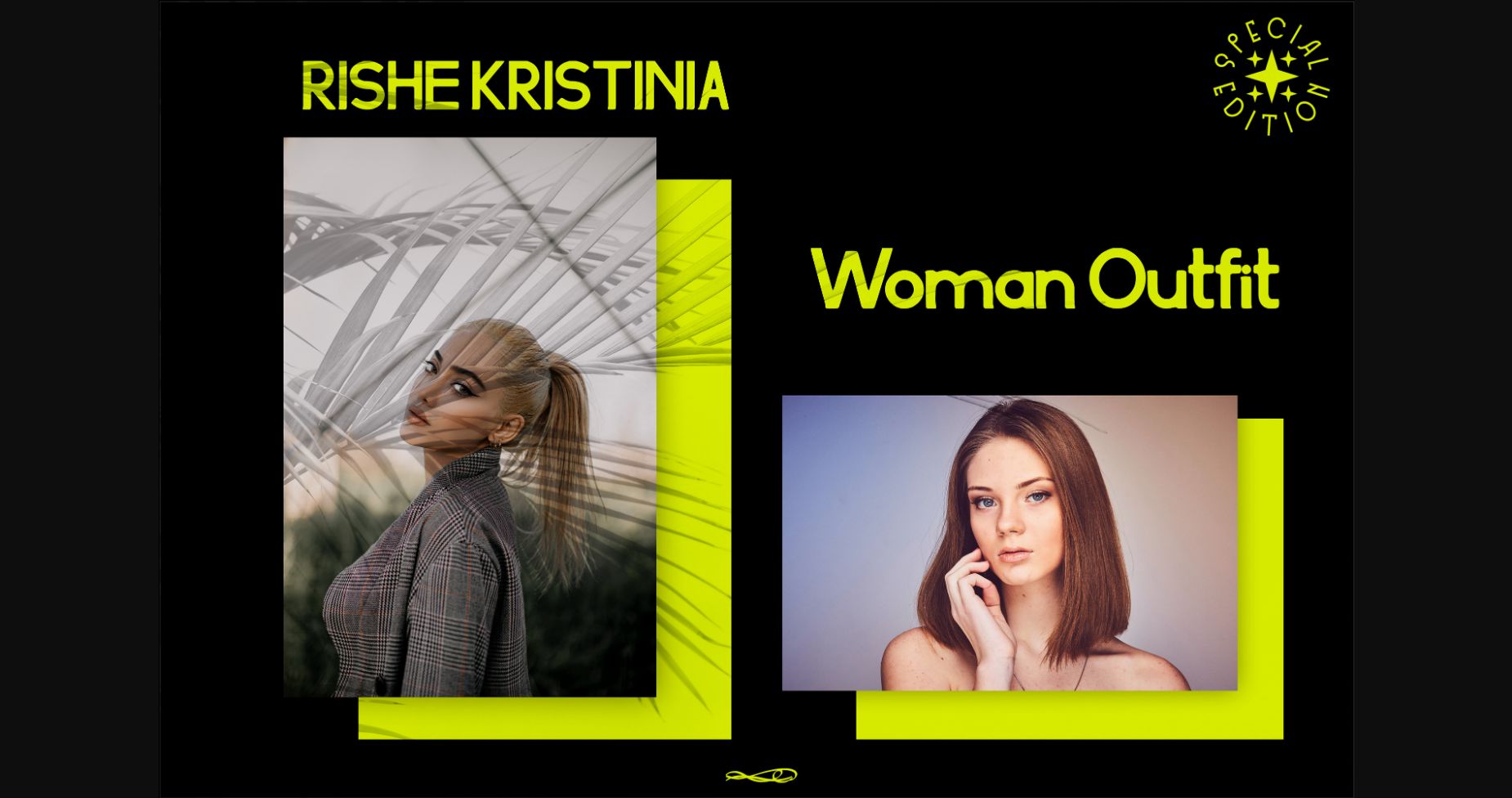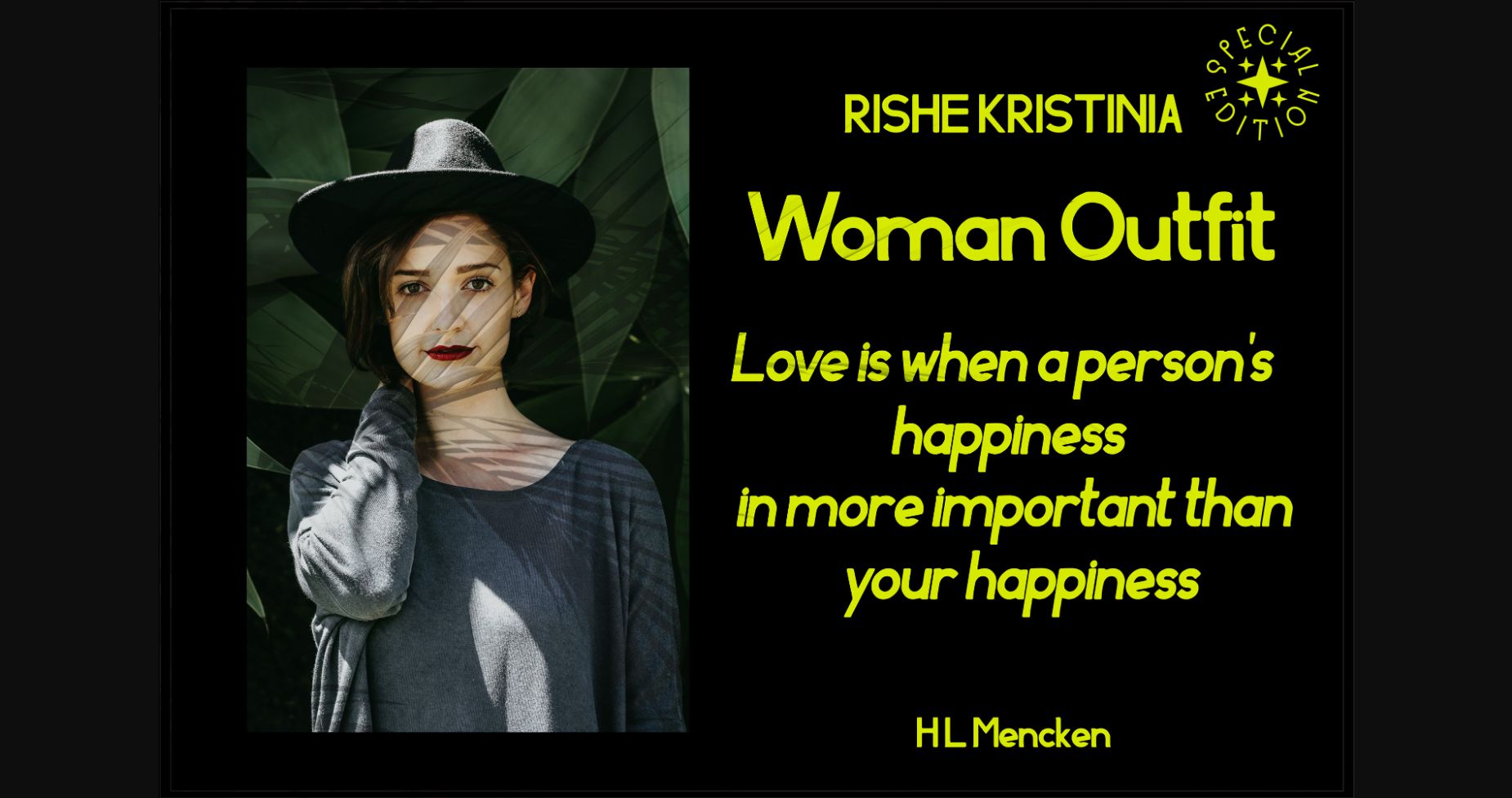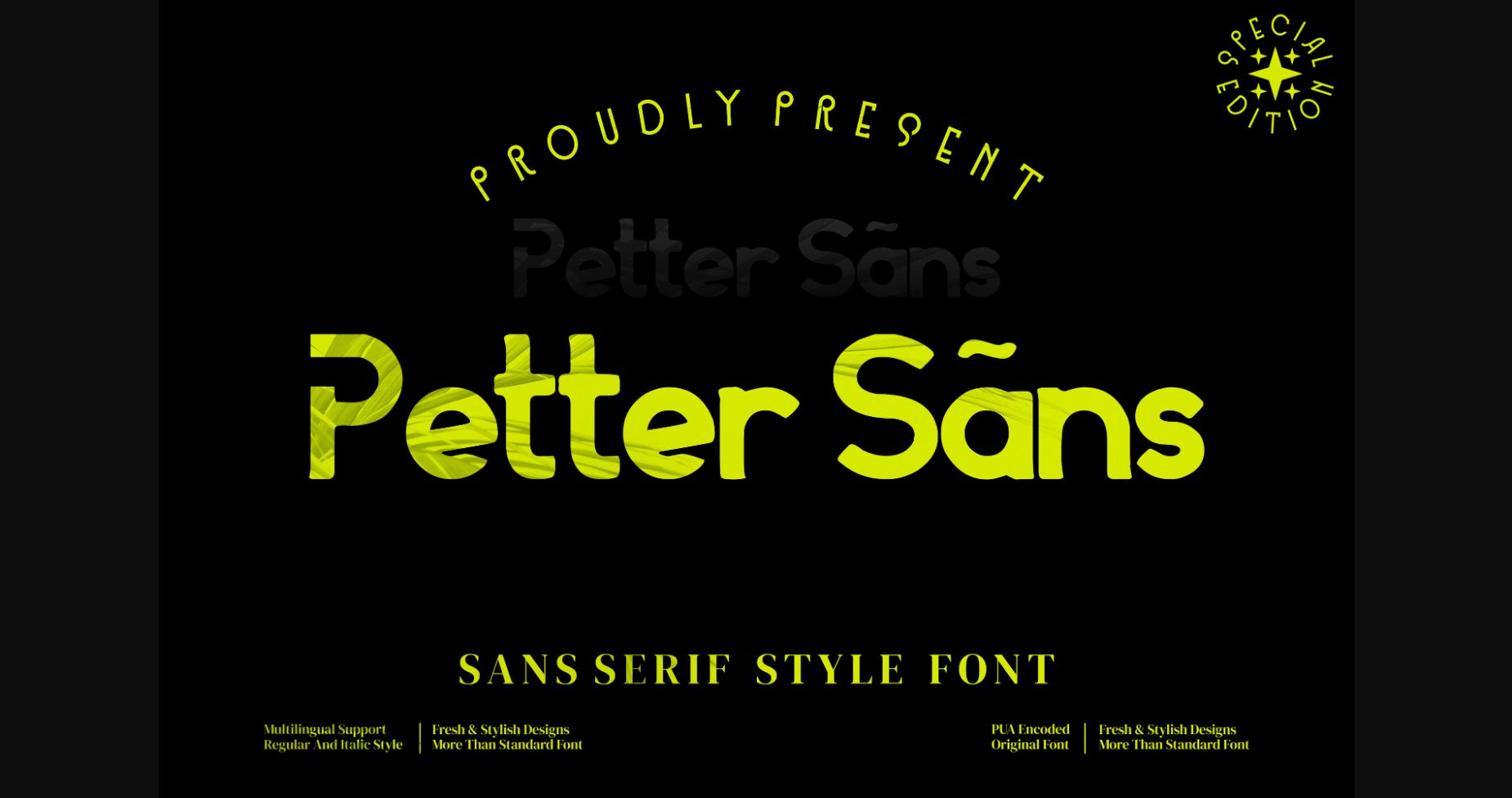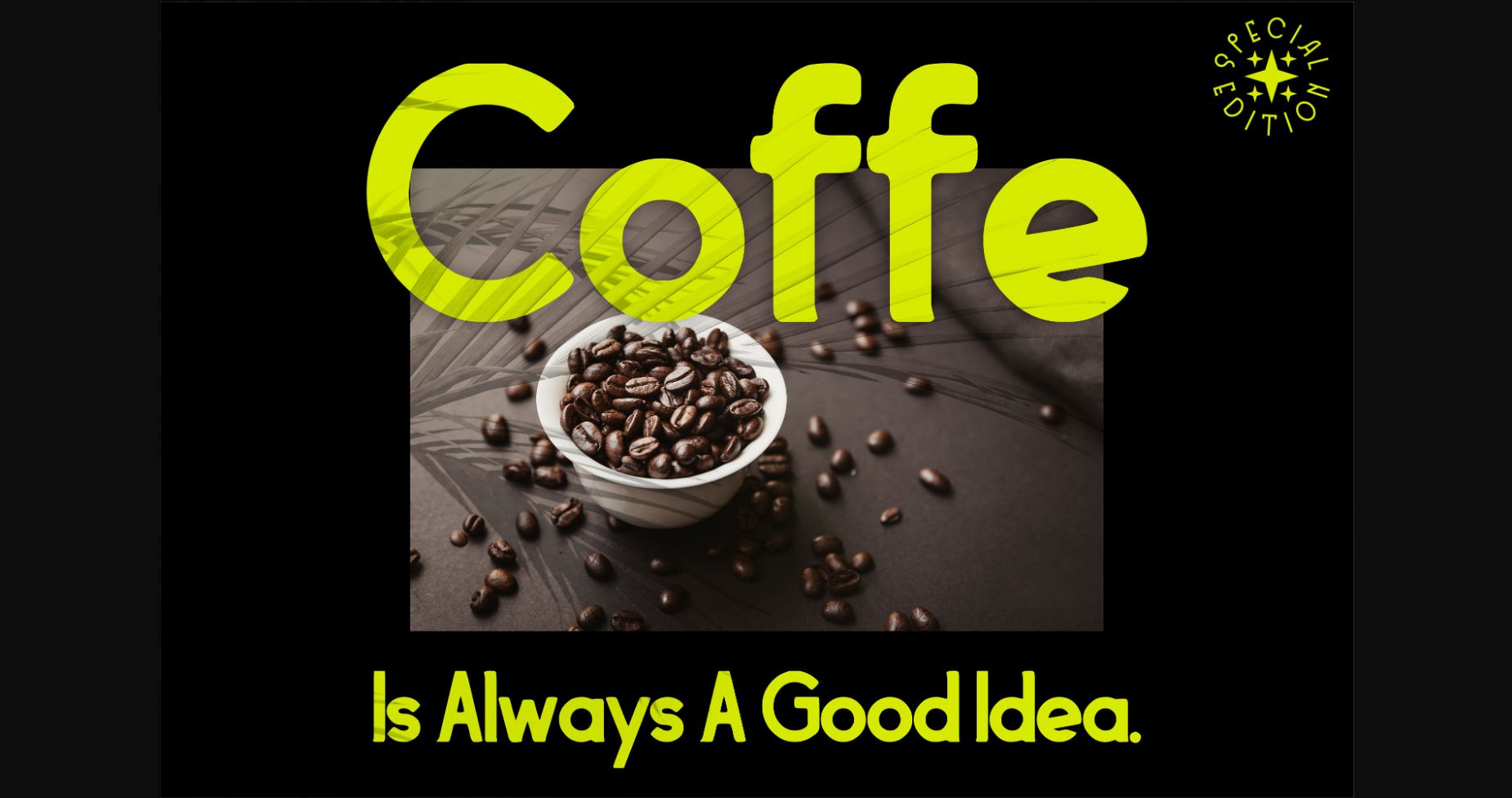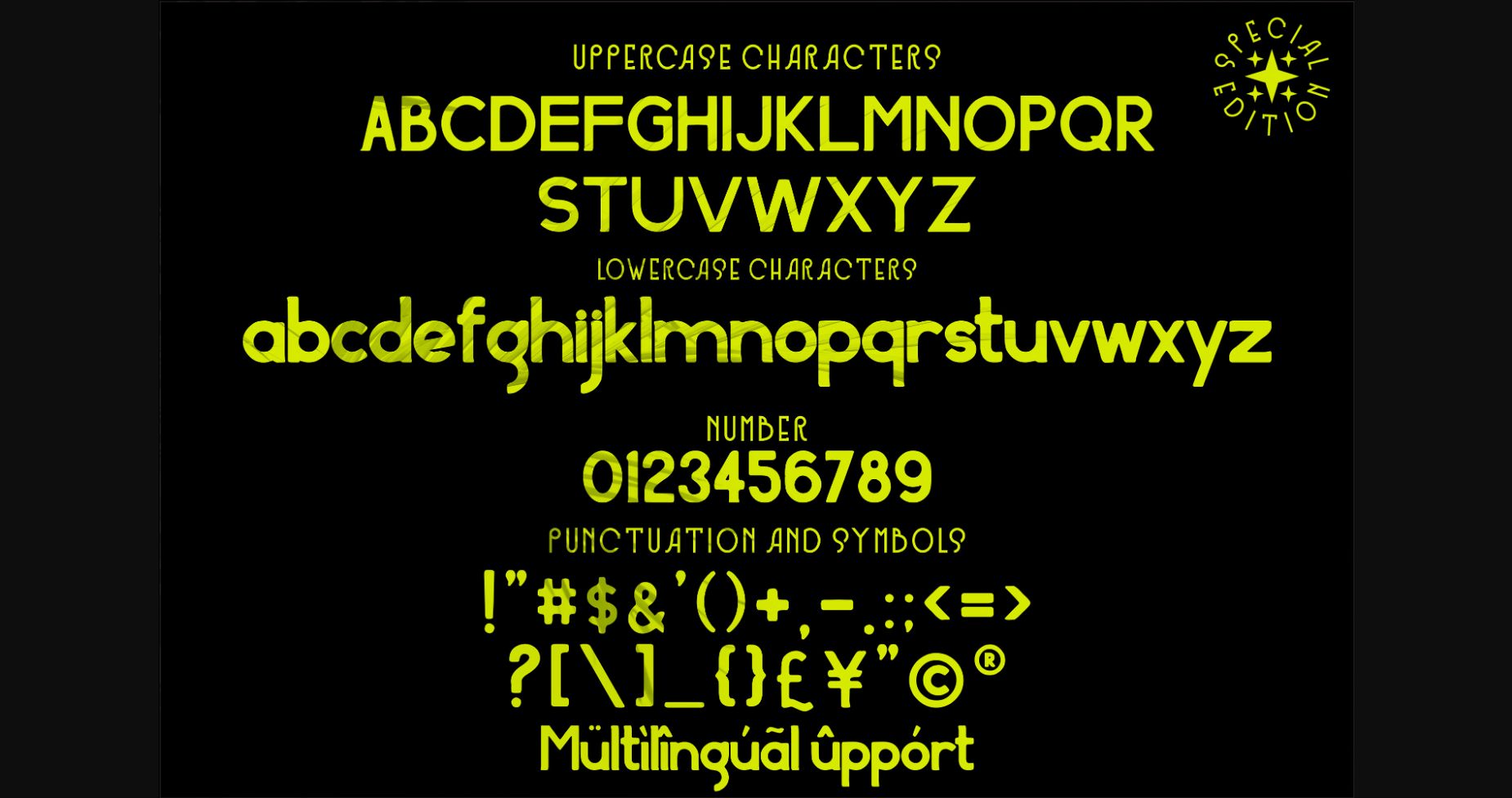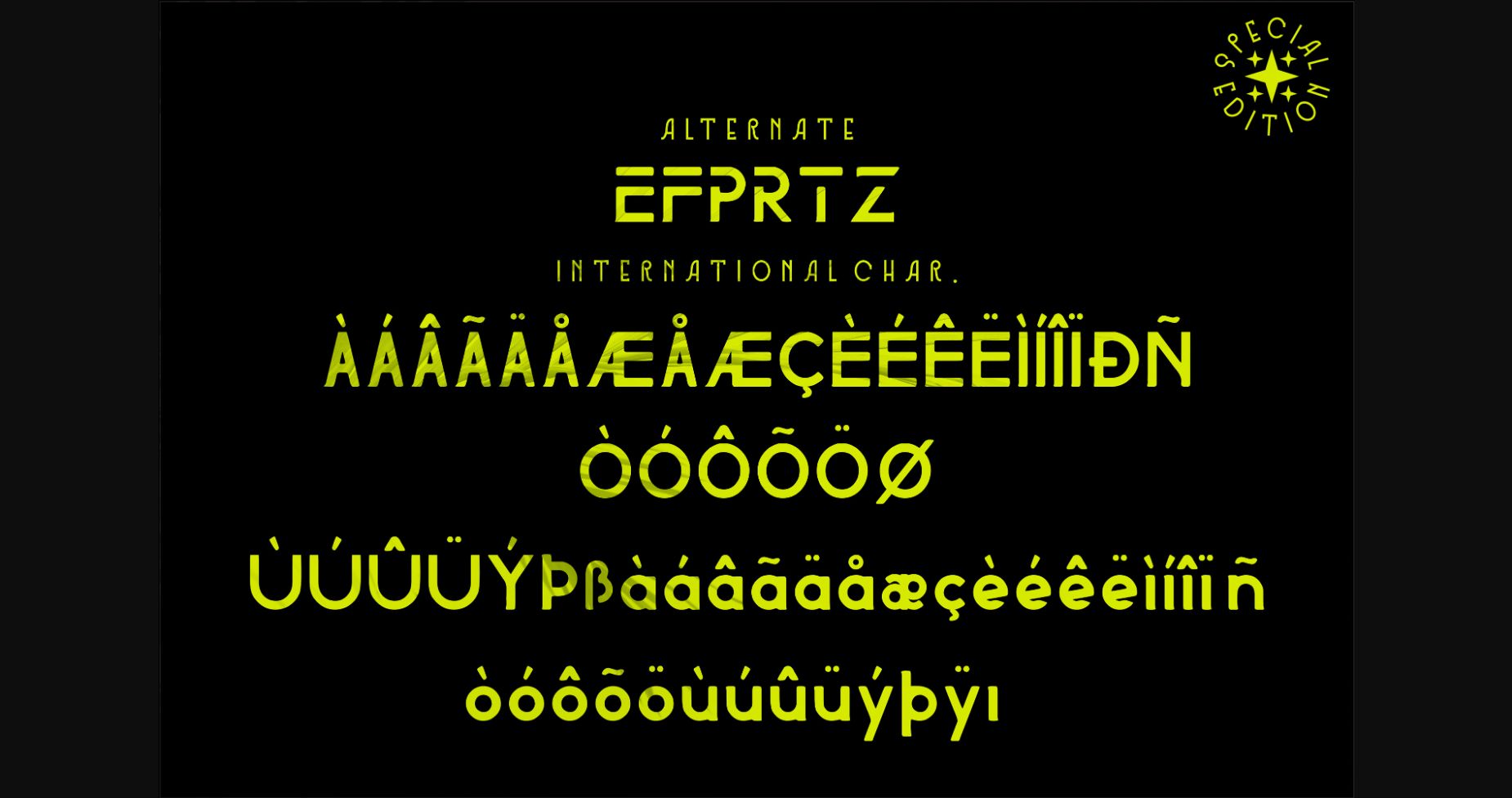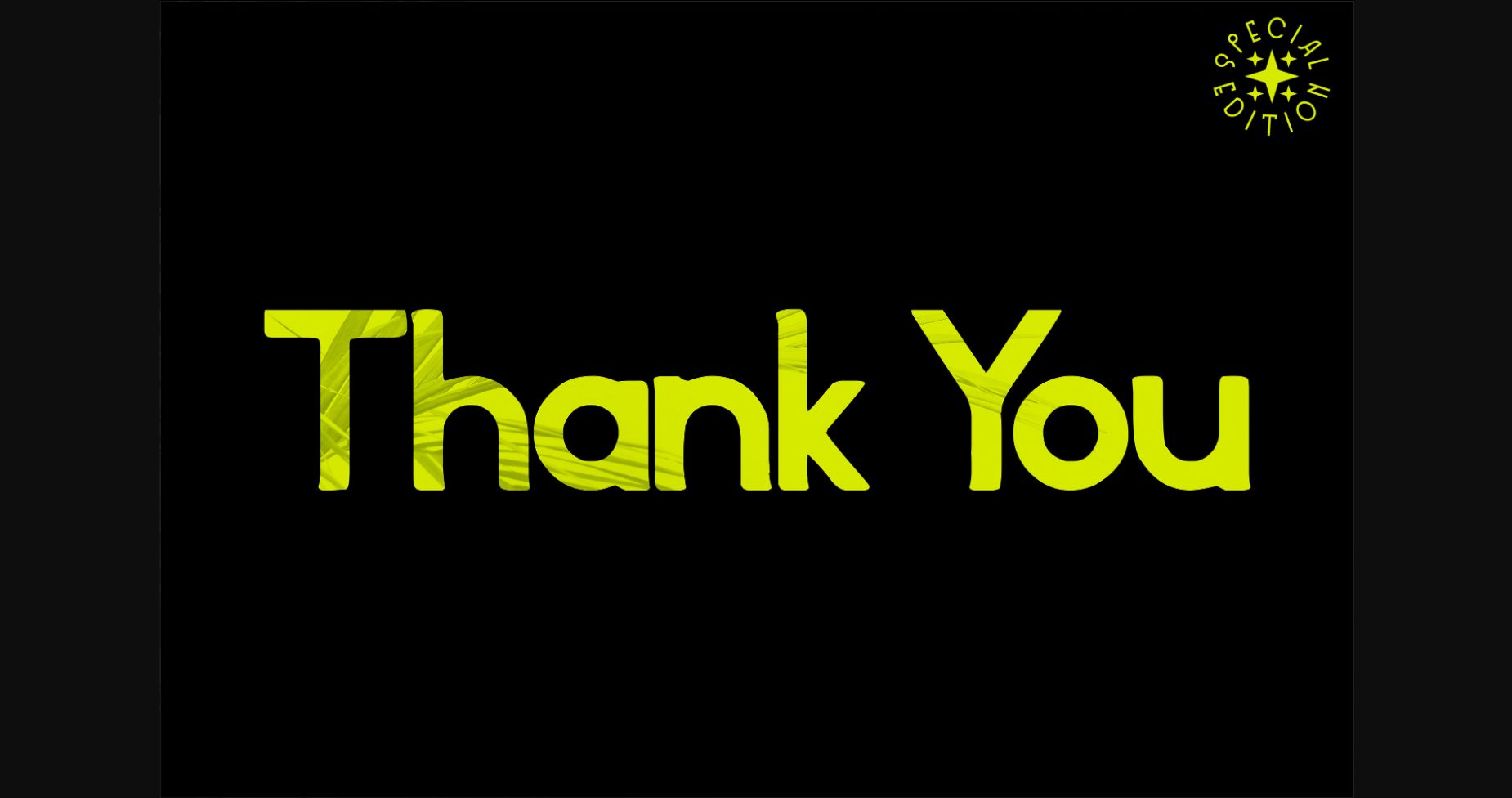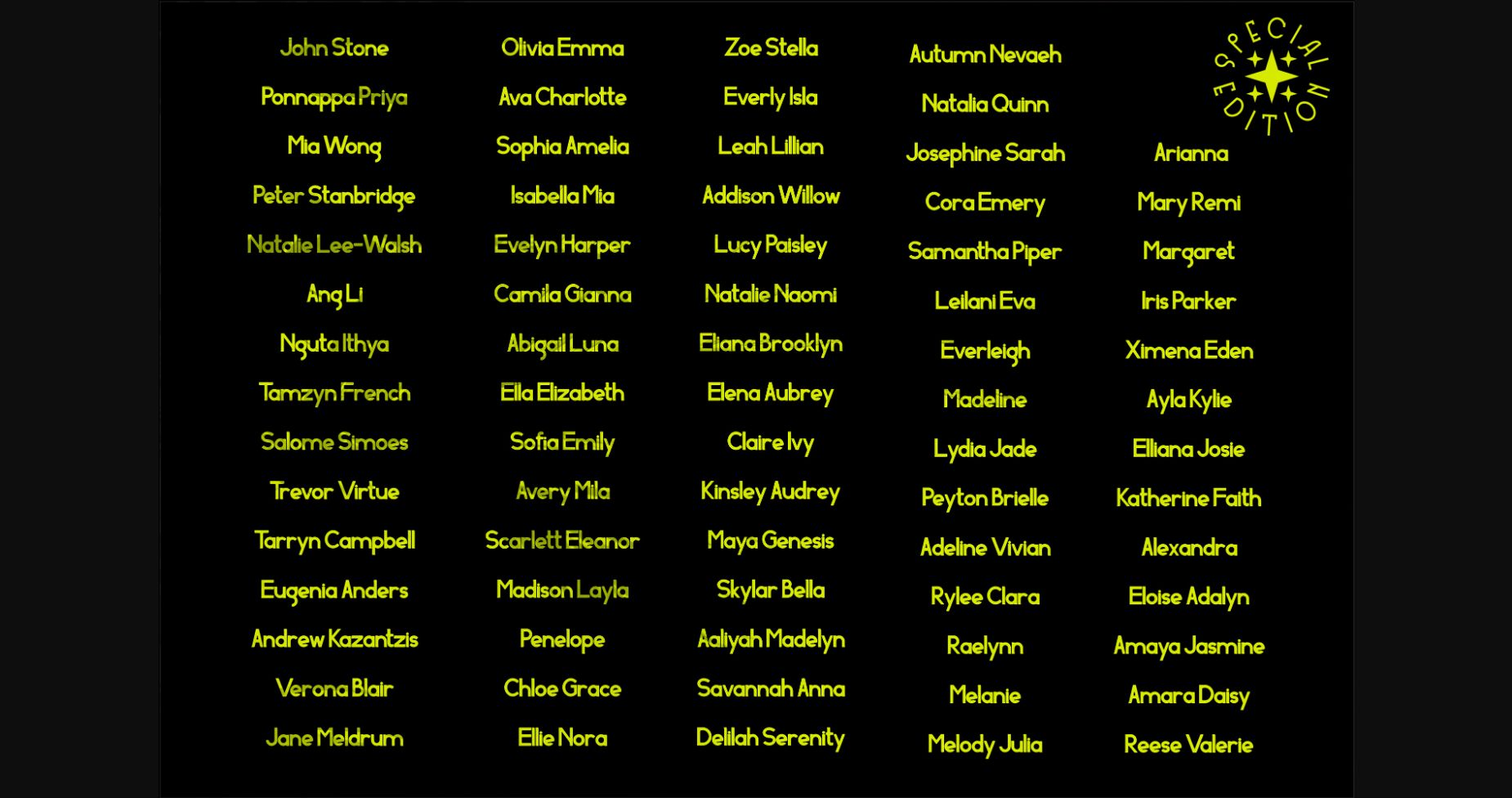
Petter Sans is a vintage styled and adaptable sans serif font. It works on logos, branding projects, homeware designs, product packaging, mugs, quotes and pretty much any luxury projects that need a premium signature taste.